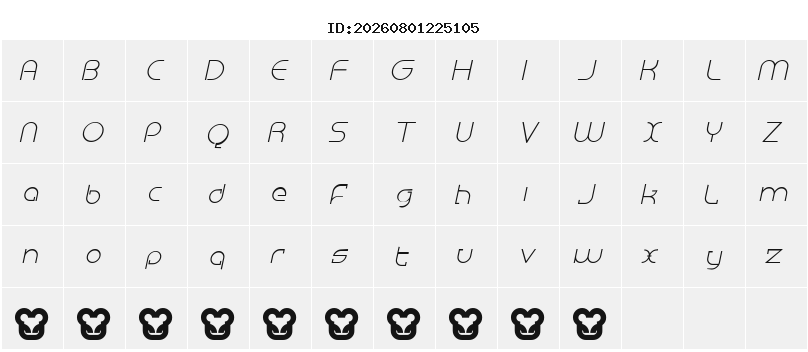
Megalomania Preview
• Font Name: Megalomania
• Font ID: Macromedia Fontographer 4.1.5 Megalomania Italic
• Full Font Name: Megalomania Italic
• Version: Macromedia Fontographer 4.1.5 6/3/02
• PostScript Name: MegalomaniaItalic
• Character Count: 101
About Megalomania.ttf
Megalomania.ttf is a modern, elegant sans-serif font designed for ultimate readability and visual harmony. Perfect for branding, headlines, web design, and print materials.